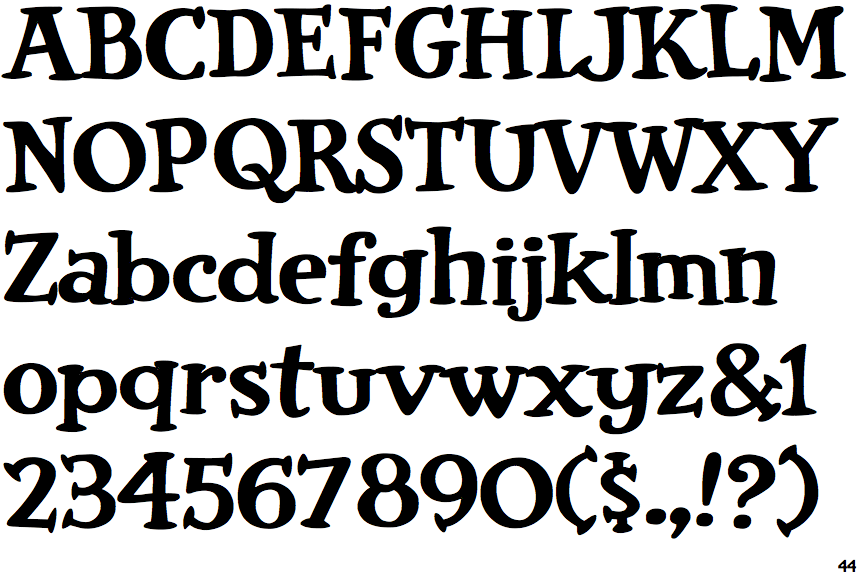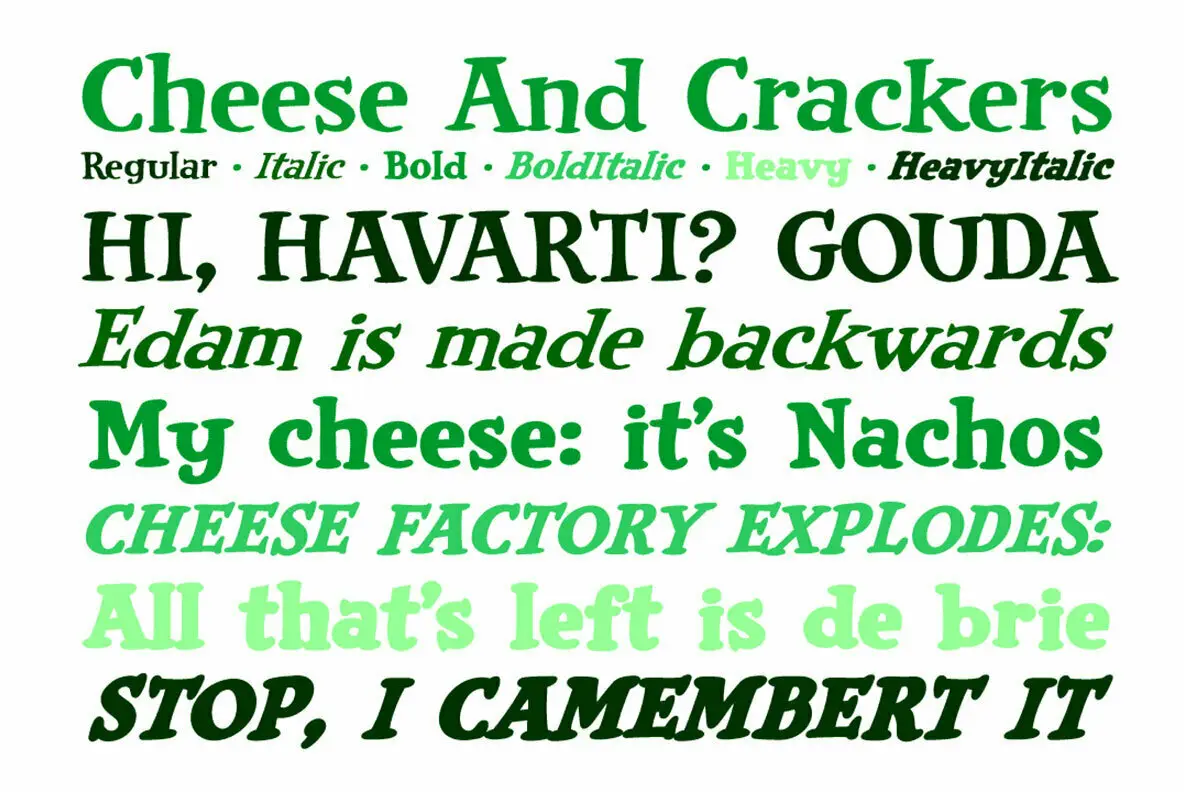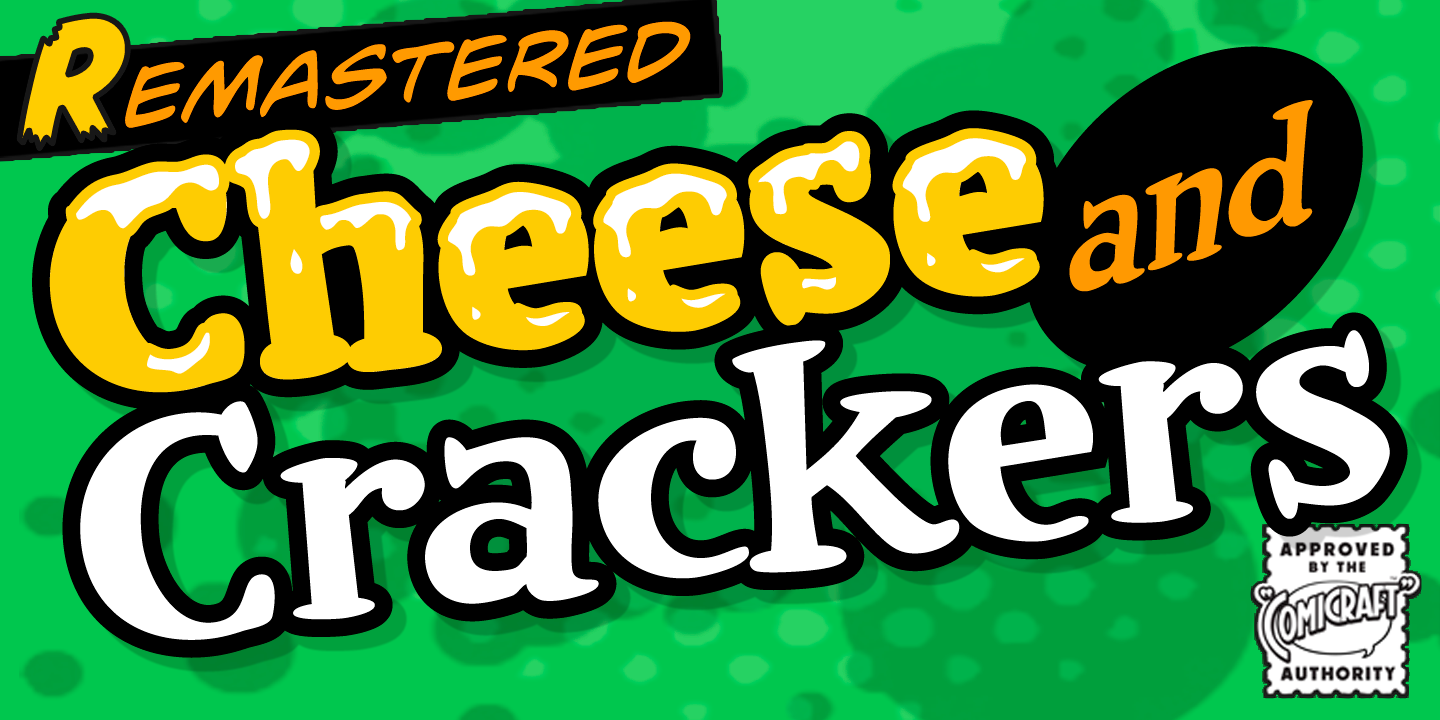
Cheese And Crackers Font Free Download . Designed by john roshell, cheese and crackers is a. Every font is free to download! Download cheese and crackers font don't forget the cheese! Cheese and crackers contains 6 styles and family package options. Click to find the best 33 free fonts in the cheese style. Cheese and crackers is a delightfully light and creamy font,. Download cheese and crackers regular font. Gromit, you forgot the cheesespecially tailored for titan books''. Gromit, you forgot the cheese! From classic cheddar to flavorful gouda, our collection of free cheese fonts has something for everyone. Discover the perfect cheese font for your project! Specially tailored for titan books' wallace & gromit comic strips, cheese & crackers is a soft serifed set of fonts as cosy as wendolene’s woolly jumpers,.
Specially tailored for titan books' wallace & gromit comic strips, cheese & crackers is a soft serifed set of fonts as cosy as wendolene’s woolly jumpers,. Gromit, you forgot the cheese! Click to find the best 33 free fonts in the cheese style. Cheese and crackers is a delightfully light and creamy font,. Designed by john roshell, cheese and crackers is a. Every font is free to download! Download cheese and crackers regular font. Download cheese and crackers font don't forget the cheese! Cheese and crackers contains 6 styles and family package options. Discover the perfect cheese font for your project!
Cheese And Crackers Font Free Download Gromit, you forgot the cheesespecially tailored for titan books''. Discover the perfect cheese font for your project! Gromit, you forgot the cheesespecially tailored for titan books''. Cheese and crackers contains 6 styles and family package options. From classic cheddar to flavorful gouda, our collection of free cheese fonts has something for everyone. Cheese and crackers is a delightfully light and creamy font,. Every font is free to download! Specially tailored for titan books' wallace & gromit comic strips, cheese & crackers is a soft serifed set of fonts as cosy as wendolene’s woolly jumpers,. Download cheese and crackers font don't forget the cheese! Gromit, you forgot the cheese! Designed by john roshell, cheese and crackers is a. Download cheese and crackers regular font. Click to find the best 33 free fonts in the cheese style.
Crackers Font · 1001 Fonts Cheese And Crackers Font Free Download Discover the perfect cheese font for your project! Designed by john roshell, cheese and crackers is a. Click to find the best 33 free fonts in the cheese style. Cheese and crackers contains 6 styles and family package options. Gromit, you forgot the cheese! Cheese and crackers is a delightfully light and creamy font,. Specially tailored for titan books' wallace. Cheese And Crackers Font Free Download.
Spin the cheese wheel for a taste of type. Cheesy font pairing reveals your favourite cheese Cheese And Crackers Font Free Download Every font is free to download! Cheese and crackers contains 6 styles and family package options. Designed by john roshell, cheese and crackers is a. Download cheese and crackers regular font. Specially tailored for titan books' wallace & gromit comic strips, cheese & crackers is a soft serifed set of fonts as cosy as wendolene’s woolly jumpers,. From classic cheddar. Cheese And Crackers Font Free Download.
Cheese Grater Font Aisyah FontSpace Cheese And Crackers Font Free Download cheese and crackers regular font. Cheese and crackers is a delightfully light and creamy font,. Cheese and crackers contains 6 styles and family package options. From classic cheddar to flavorful gouda, our collection of free cheese fonts has something for everyone. Designed by john roshell, cheese and crackers is a. Every font is free to download! Gromit, you forgot. Cheese And Crackers Font Free Download.
Cheese and Crackers Font YouWorkForThem Cheese crackers, Cheese Cheese And Crackers Font Free Download Gromit, you forgot the cheesespecially tailored for titan books''. Download cheese and crackers font don't forget the cheese! Designed by john roshell, cheese and crackers is a. Cheese and crackers is a delightfully light and creamy font,. From classic cheddar to flavorful gouda, our collection of free cheese fonts has something for everyone. Gromit, you forgot the cheese! Click to. Cheese And Crackers Font Free Download.
Cheese And Crackers Font Free Download friendlylasopa Cheese And Crackers Font Free Download From classic cheddar to flavorful gouda, our collection of free cheese fonts has something for everyone. Every font is free to download! Gromit, you forgot the cheese! Download cheese and crackers regular font. Click to find the best 33 free fonts in the cheese style. Cheese and crackers is a delightfully light and creamy font,. Gromit, you forgot the cheesespecially. Cheese And Crackers Font Free Download.
Cheese and Crackers Stunning Serif Fonts Creative Market Cheese And Crackers Font Free Download cheese and crackers regular font. Specially tailored for titan books' wallace & gromit comic strips, cheese & crackers is a soft serifed set of fonts as cosy as wendolene’s woolly jumpers,. Cheese and crackers contains 6 styles and family package options. Discover the perfect cheese font for your project! From classic cheddar to flavorful gouda, our collection of free. Cheese And Crackers Font Free Download.
Crackers Font by PJ Fonttein · Creative Fabrica Cheese And Crackers Font Free Download Designed by john roshell, cheese and crackers is a. Cheese and crackers contains 6 styles and family package options. Gromit, you forgot the cheese! From classic cheddar to flavorful gouda, our collection of free cheese fonts has something for everyone. Specially tailored for titan books' wallace & gromit comic strips, cheese & crackers is a soft serifed set of fonts. Cheese And Crackers Font Free Download.
Crackers Font Dfonts Cheese And Crackers Font Free Download Cheese and crackers is a delightfully light and creamy font,. Designed by john roshell, cheese and crackers is a. Discover the perfect cheese font for your project! Specially tailored for titan books' wallace & gromit comic strips, cheese & crackers is a soft serifed set of fonts as cosy as wendolene’s woolly jumpers,. Gromit, you forgot the cheese! Download cheese. Cheese And Crackers Font Free Download.